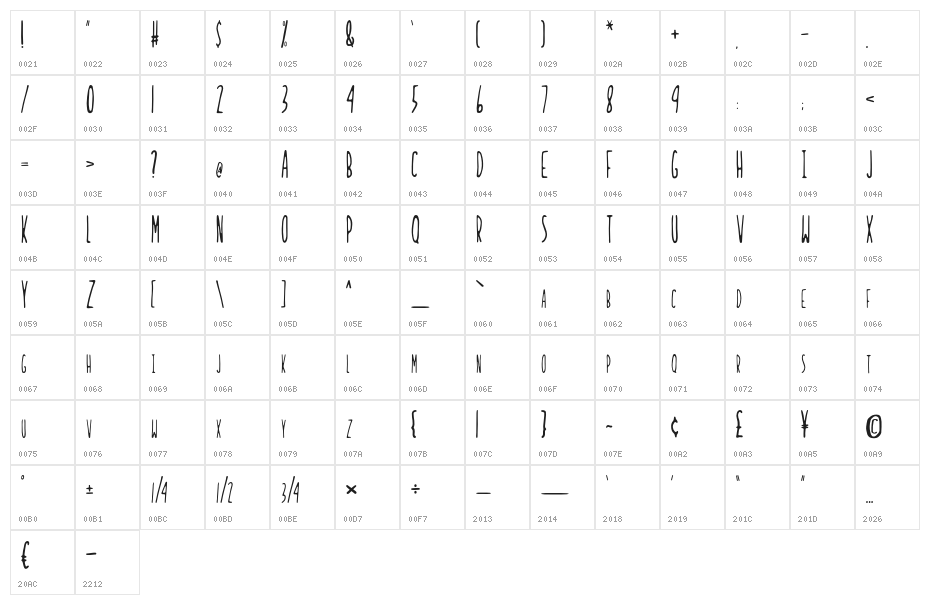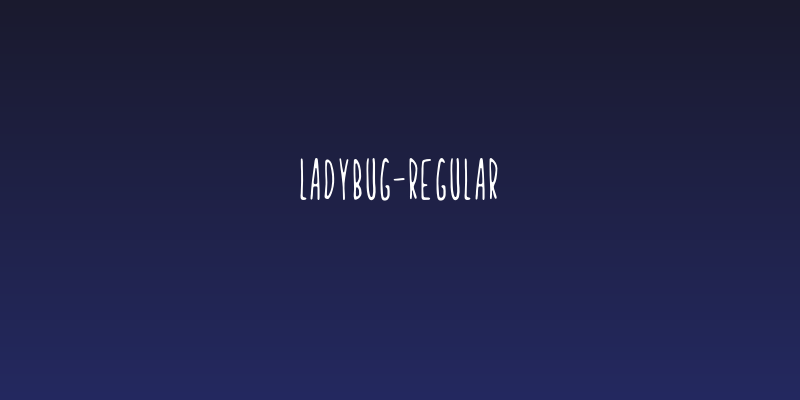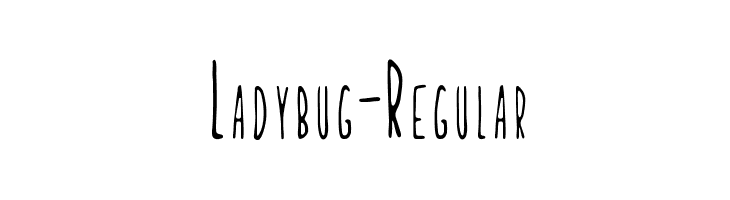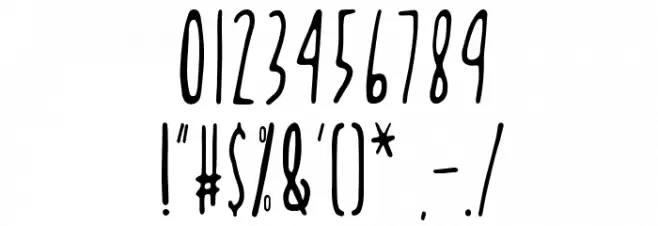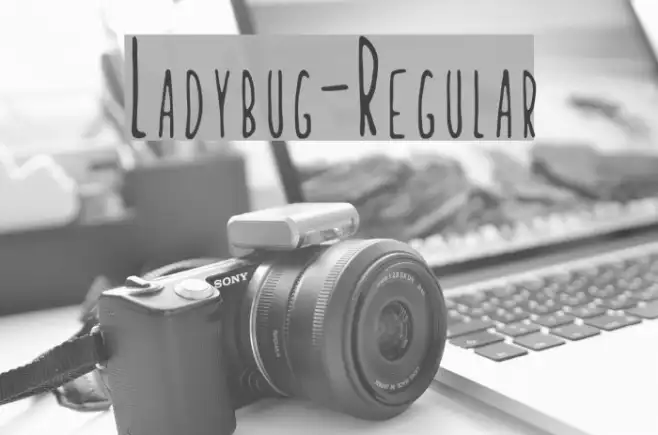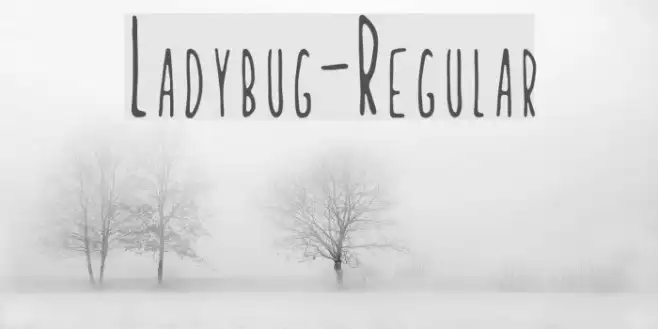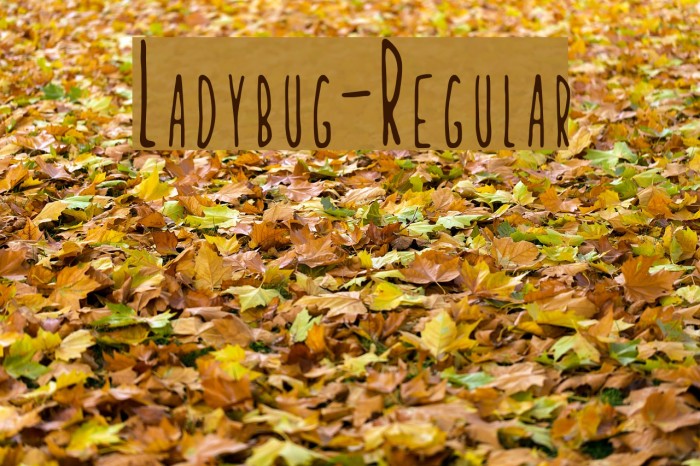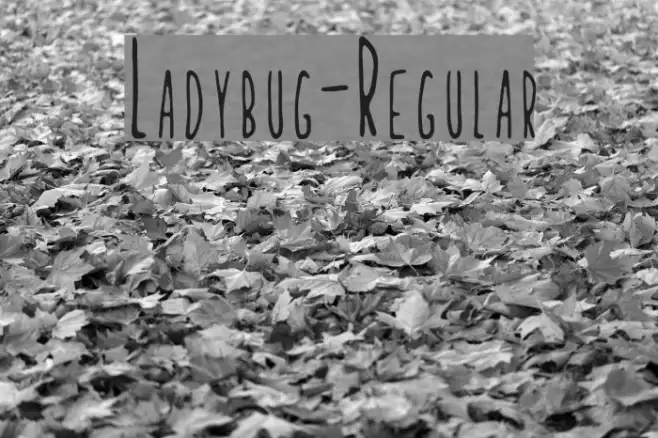
Ladybug-Regular Font
Ladybug-Regular Description
This font features a playful and whimsical style, characterized by its elongated and slightly irregular letterforms. The strokes are uneven, giving it a hand-drawn appearance that adds a touch of charm and personality. The uppercase and lowercase letters maintain a consistent style, with a slight slant that enhances its casual feel. The numerals and special characters follow the same aesthetic, ensuring a cohesive look across all text elements. This font's unique style makes it stand out, perfect for projects that require a fun and informal touch.
| Proposed Projects | Ideal for children's books, greeting cards, playful branding, and creative posters. |